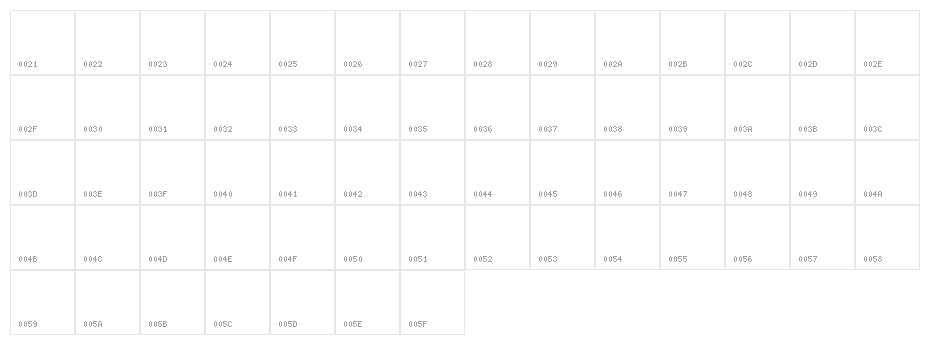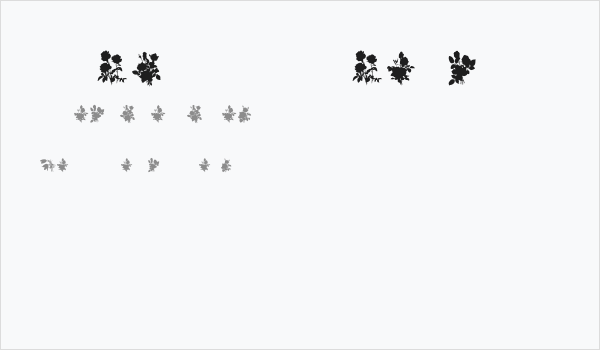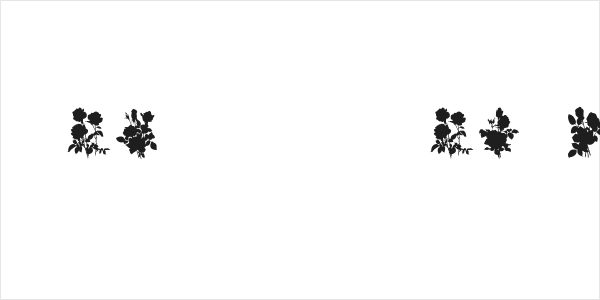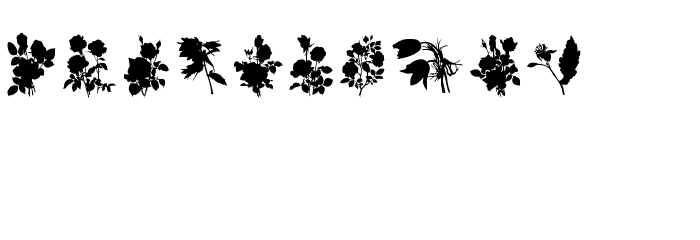
SubiktoTwo beta Font
SubiktoTwo beta Description
A decorative set of botanical silhouettes, each glyph representing a different detailed plant or flower in solid black, with organic and natural shapes.
| Overall Style | Decorative, Natural, Organic |
| Use Case | Decorative elements, Icons, Borders, Themed graphics |
| Proposed Projects | Nature-themed designs, botanical illustrations, eco-friendly branding, decorative borders, scrapbooking, invitations. |